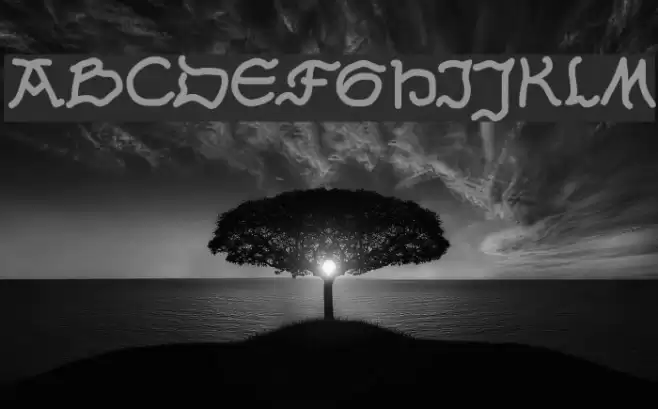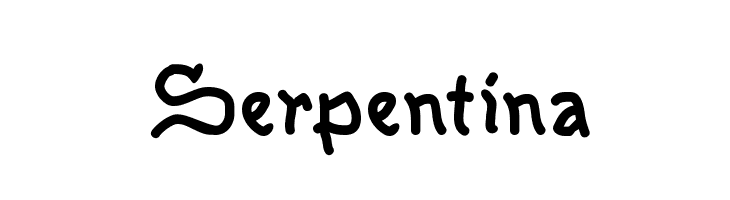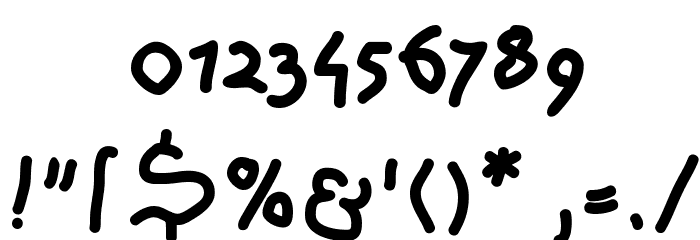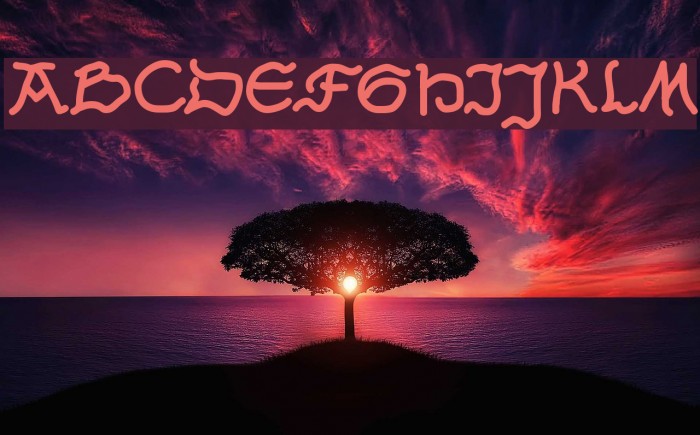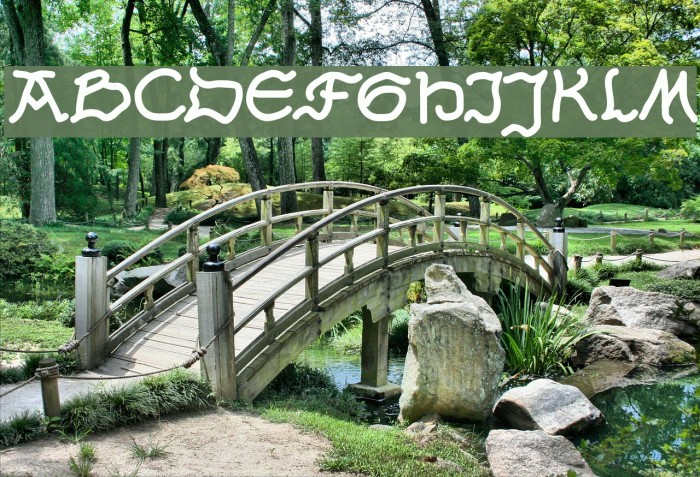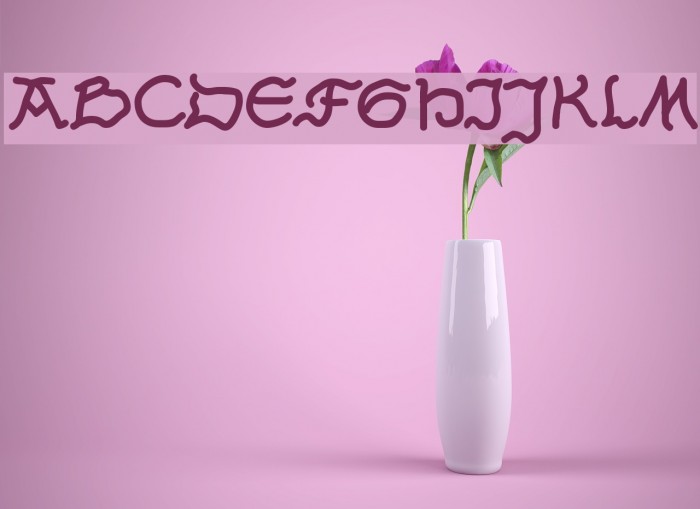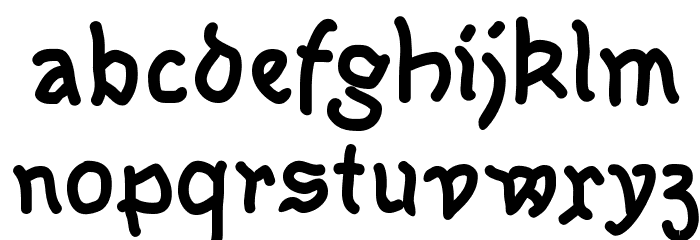
Serpentina Font
Serpentina Description
This font features a unique and artistic design, characterized by its wavy and serpentine strokes that give it a dynamic and fluid appearance. The letters are bold and have a playful, almost whimsical quality, making them stand out with their distinctive curves and loops. The uppercase and lowercase letters maintain a consistent style, with the lowercase letters being slightly more compact. Numbers and special characters follow the same design principles, ensuring a cohesive look across all glyphs. The font's overall aesthetic is both modern and decorative, making it suitable for creative and eye-catching designs.
A bold, wavy font with a dynamic and whimsical style from Uncategorized fonts.